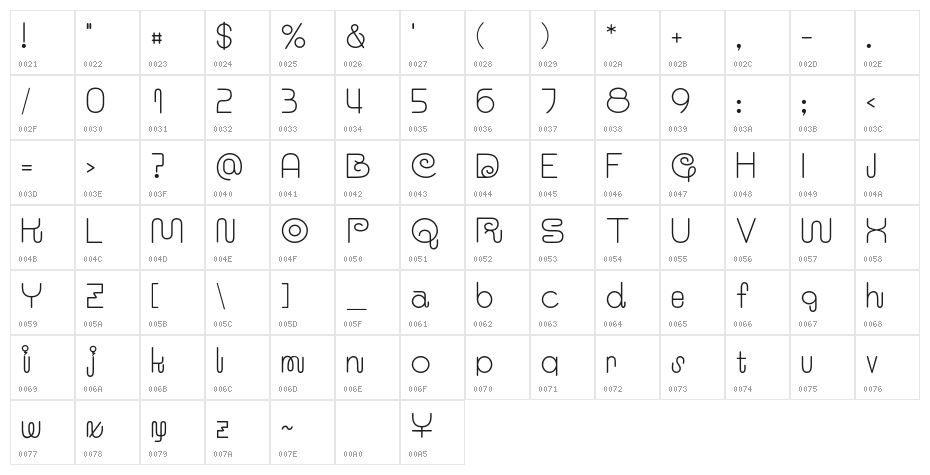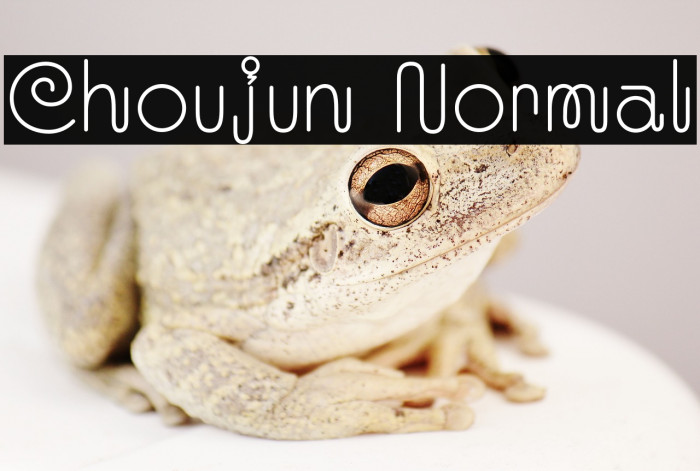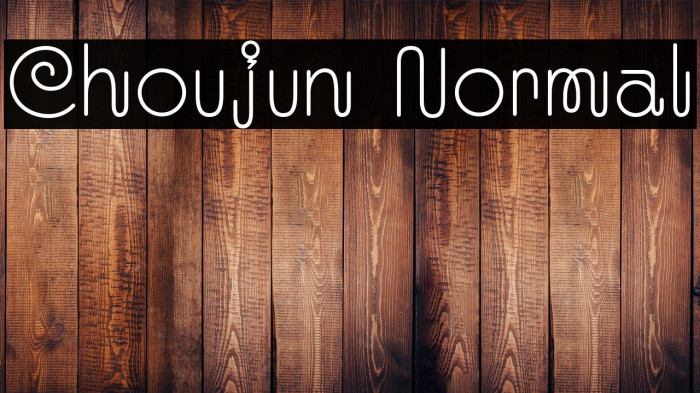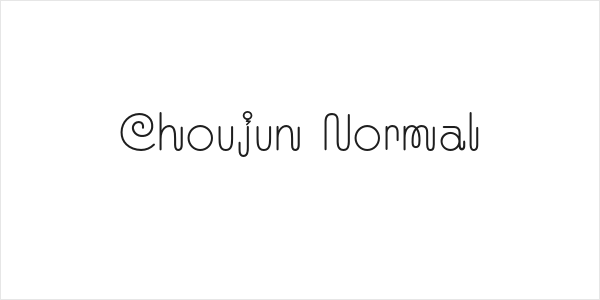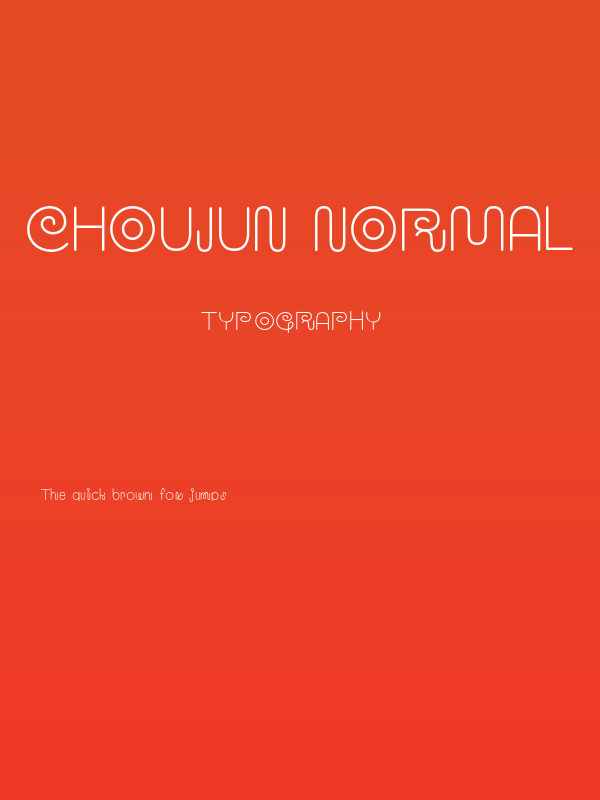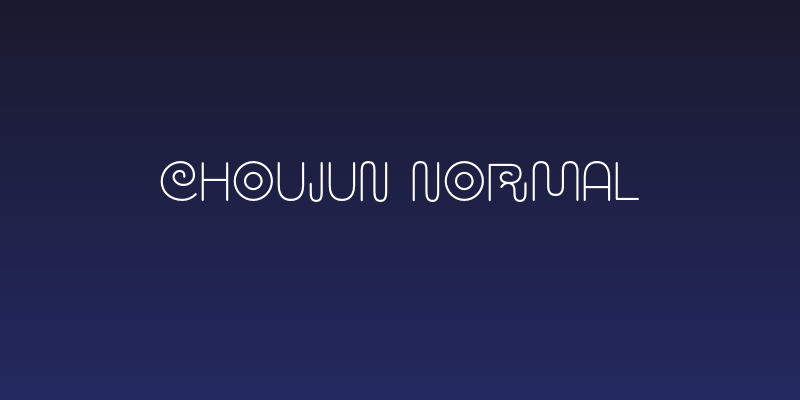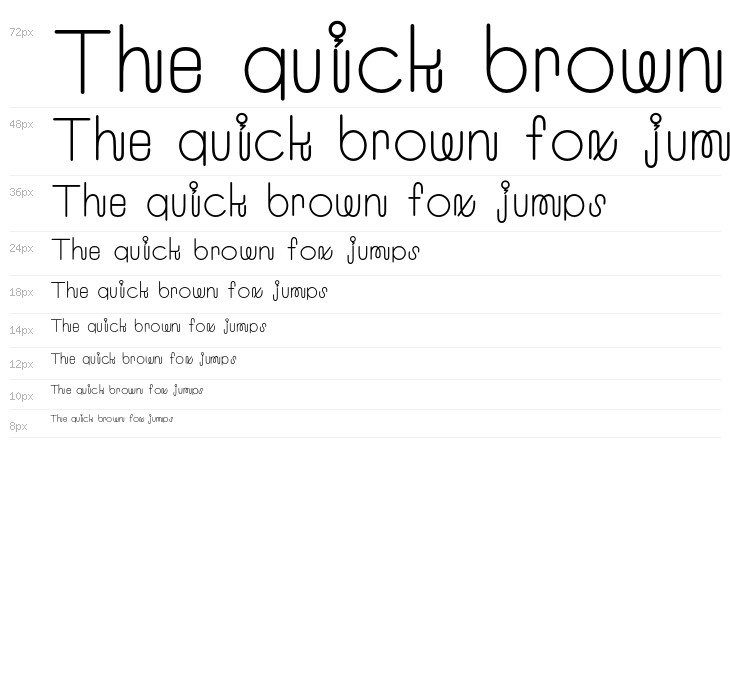
Choujun Normal Font
Choujun Normal Description
This font features a unique and playful design with a modern twist. Each character is crafted with a sense of whimsy, incorporating unexpected curves and loops that add a decorative flair. The uppercase letters are bold and distinct, with some characters featuring spiral or looped elements that make them stand out. The lowercase letters maintain a consistent style, with rounded edges and a playful aesthetic. Numbers and special characters follow the same design principles, ensuring a cohesive look across all elements. The font's overall appearance is both artistic and approachable, making it suitable for creative projects.
| Overall Style | Modern, Decorative |
| Use Case | Logos, Headlines, Creative projects |
| Proposed Projects | Ideal for creative branding, children's books, playful posters, and artistic invitations. |